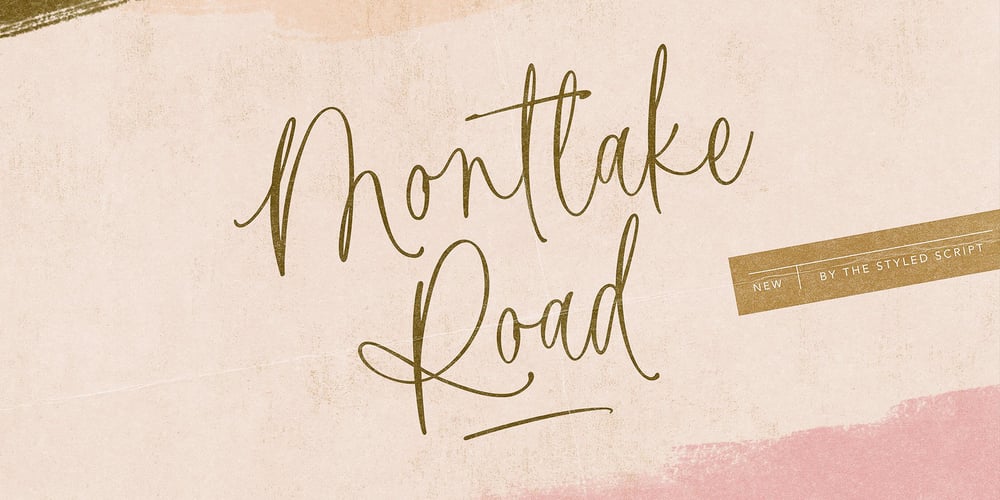
Montlake Road
Montlake Road font
Montlake Road Font Family was designed by Lindsay Kramlich and published by The Styled Script. Montlake Road contains 1 styles and family package options. Say hello to the Montlake Road Script Font. This is a carefree and elegant font with a romantic and feminine flare. Montlake Road has Opentype ligatures that give help give a natural handwritten look while the lowercase swashes add a beautiful touch to any project.This font is perfect for logos, notes, labels, wedding invitations, or branding for any project.